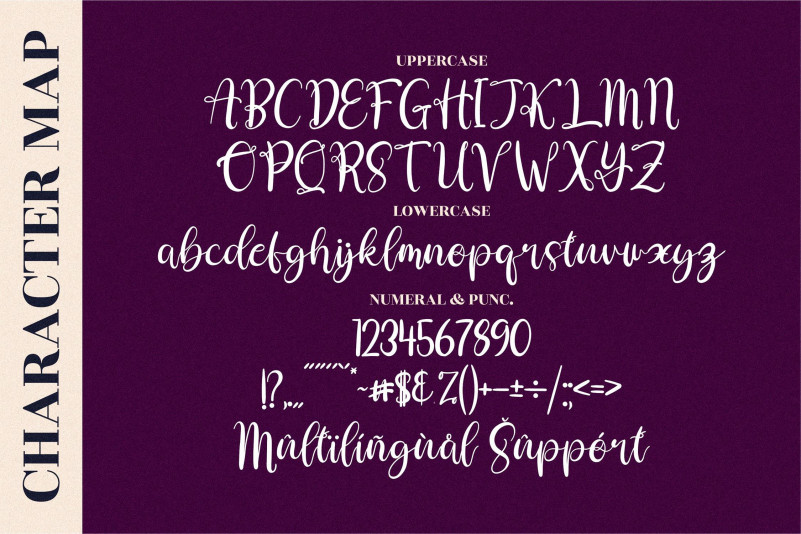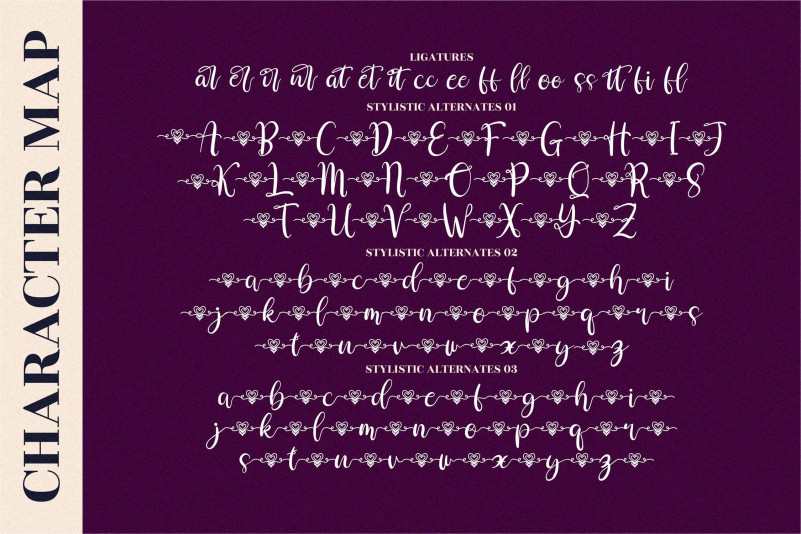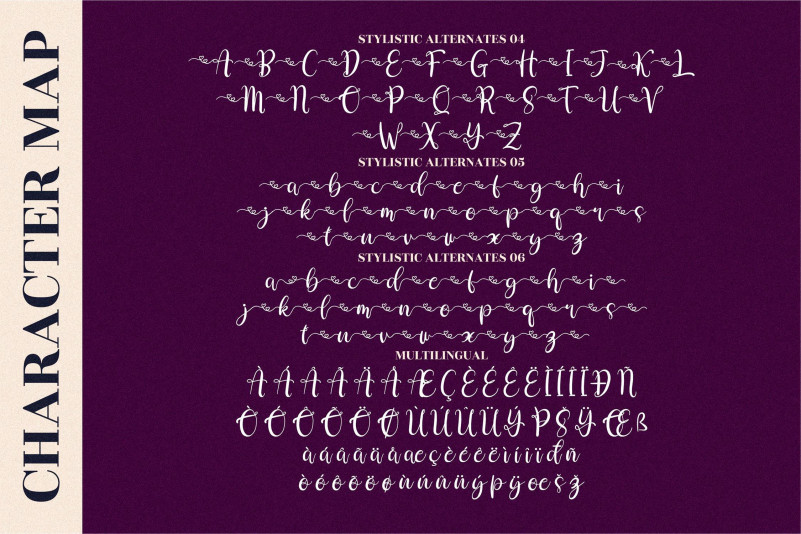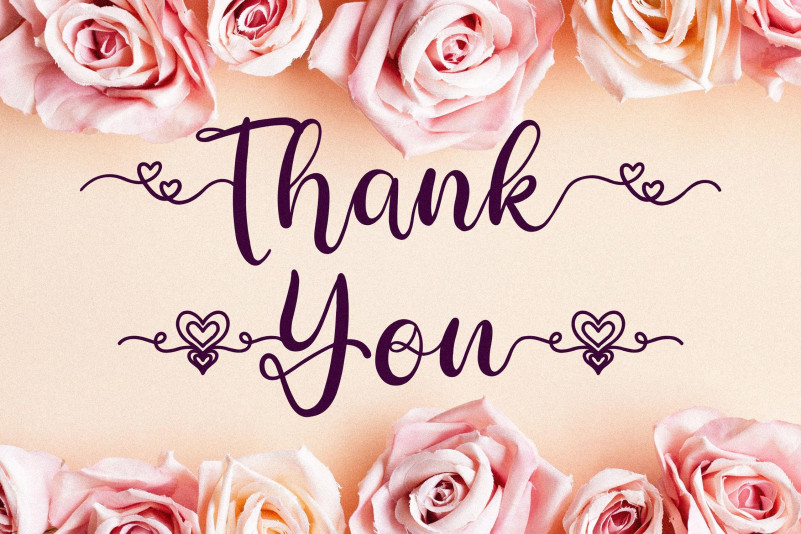
Love Erlia Calligraphy Font
This is a beautiful script font with a love and nature theme. Simple and easy to use, this font will be very beautiful if you mix it with your various craft designs.
This font is PUA encoded which means you can access all of the glyphs and swashes with ease!